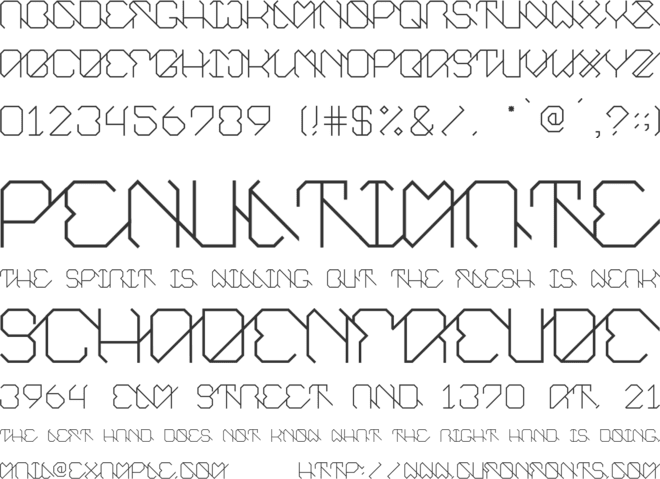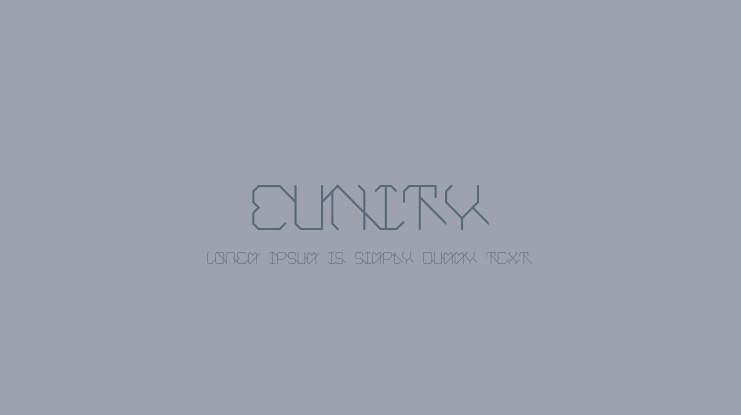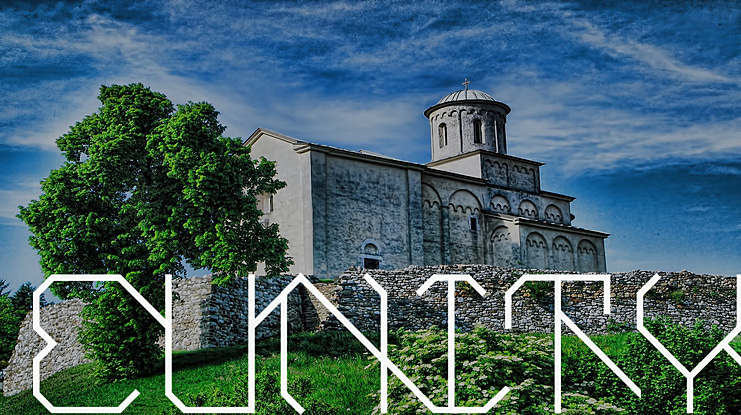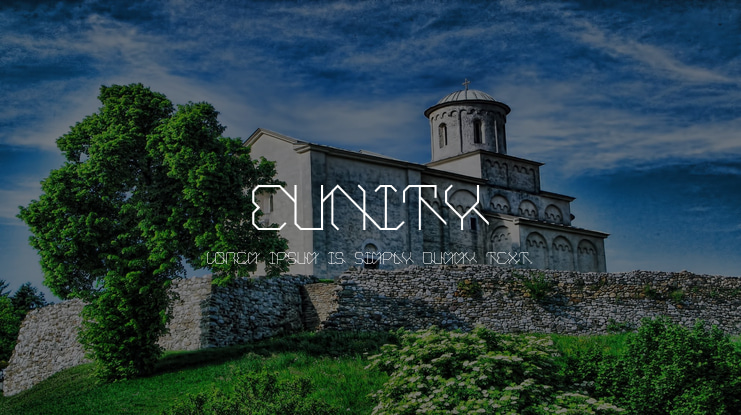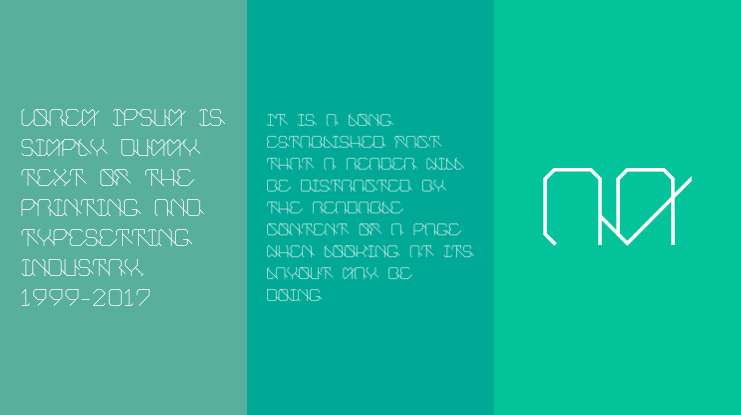
EUnity Font
Europe is in a crisis! Countries are in doubt. How much power do we lend to the European Union? What is the value of the Euro? Do we have to suffer for other countries problems? What if we step out of the EU, and just fend for ourselfs?!
It's a crisis indeed, in which there are alot of short term visions and 'solutions'. Surely you can just drop out, but what about the future? Europe must remember that we are not the only economy around. You can fend for yourself for a while but in the end you must compete with future big economic powers like China, India and South America.
What Europe needs to survive on a long term is a solid platform. A strong network with clear guidelines that stimulates trading, but with the countries remaining their own seperate identity.
To symbolize this in a medium I made a display typeface named EUnity. It's a very complete typeface, that allow all European countries to make proper use of this font. With EUnity, the user is able to connect by choice with the use of uppercast writing or undercast.
The key, it's EUnity!